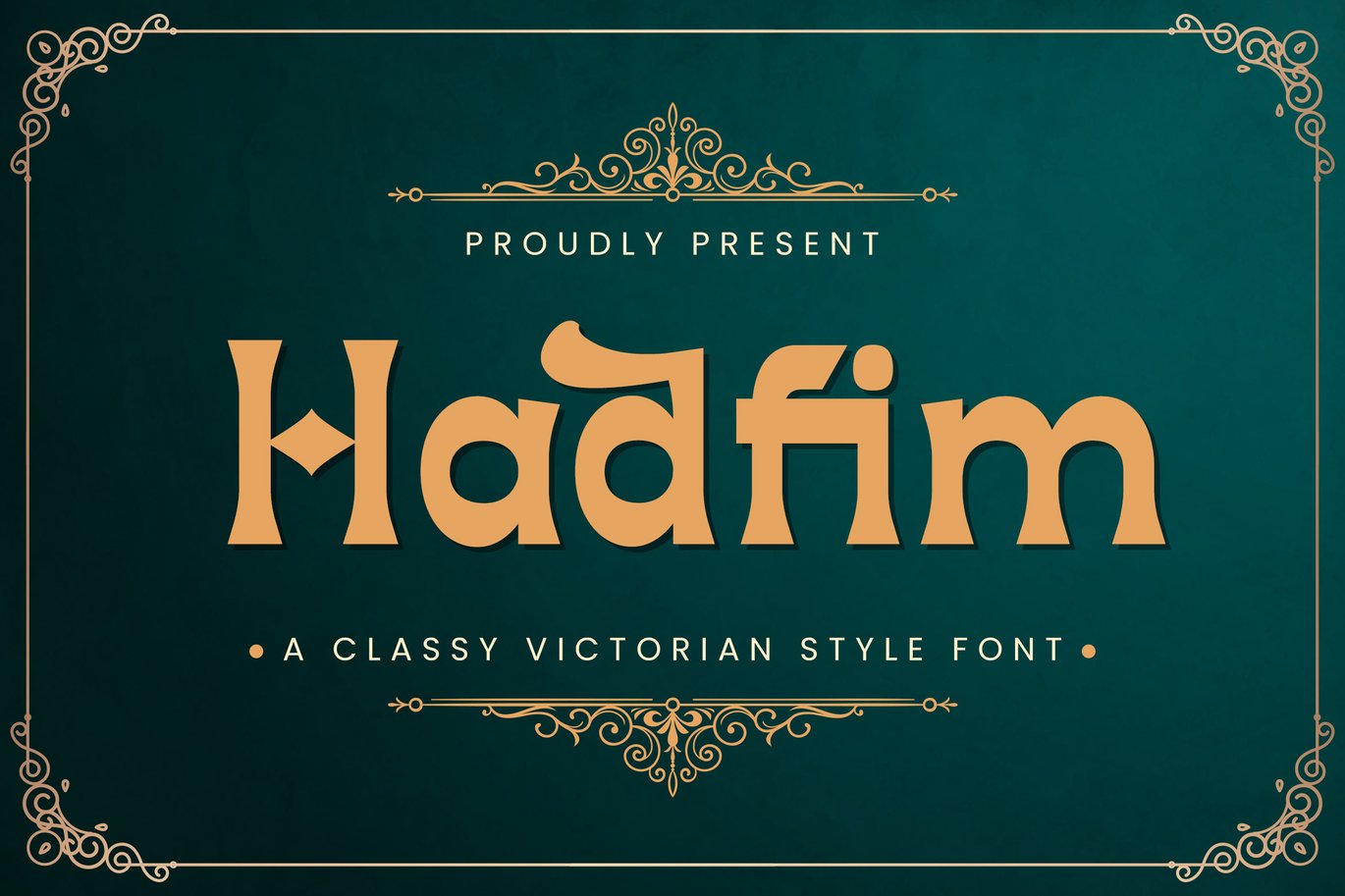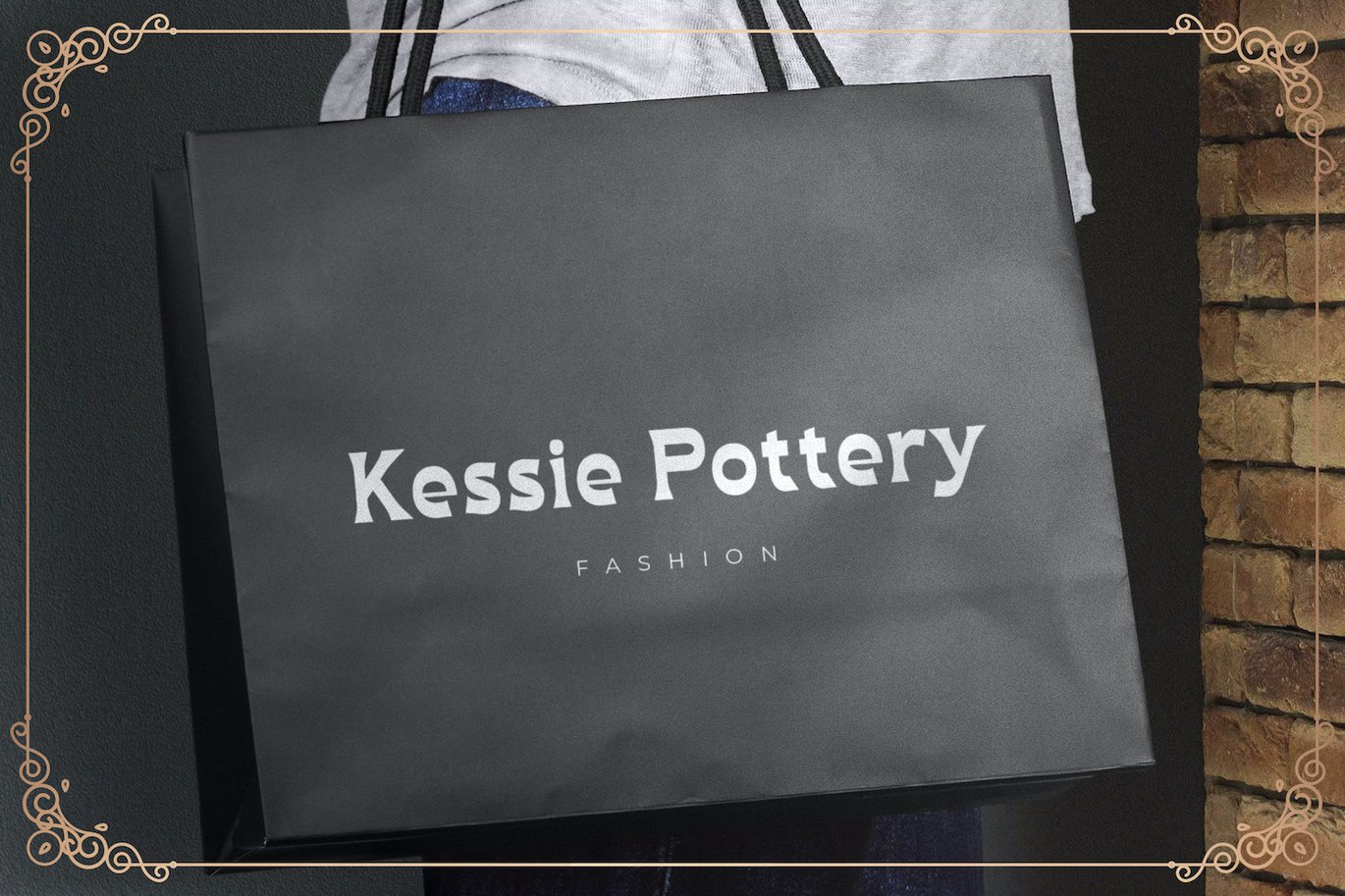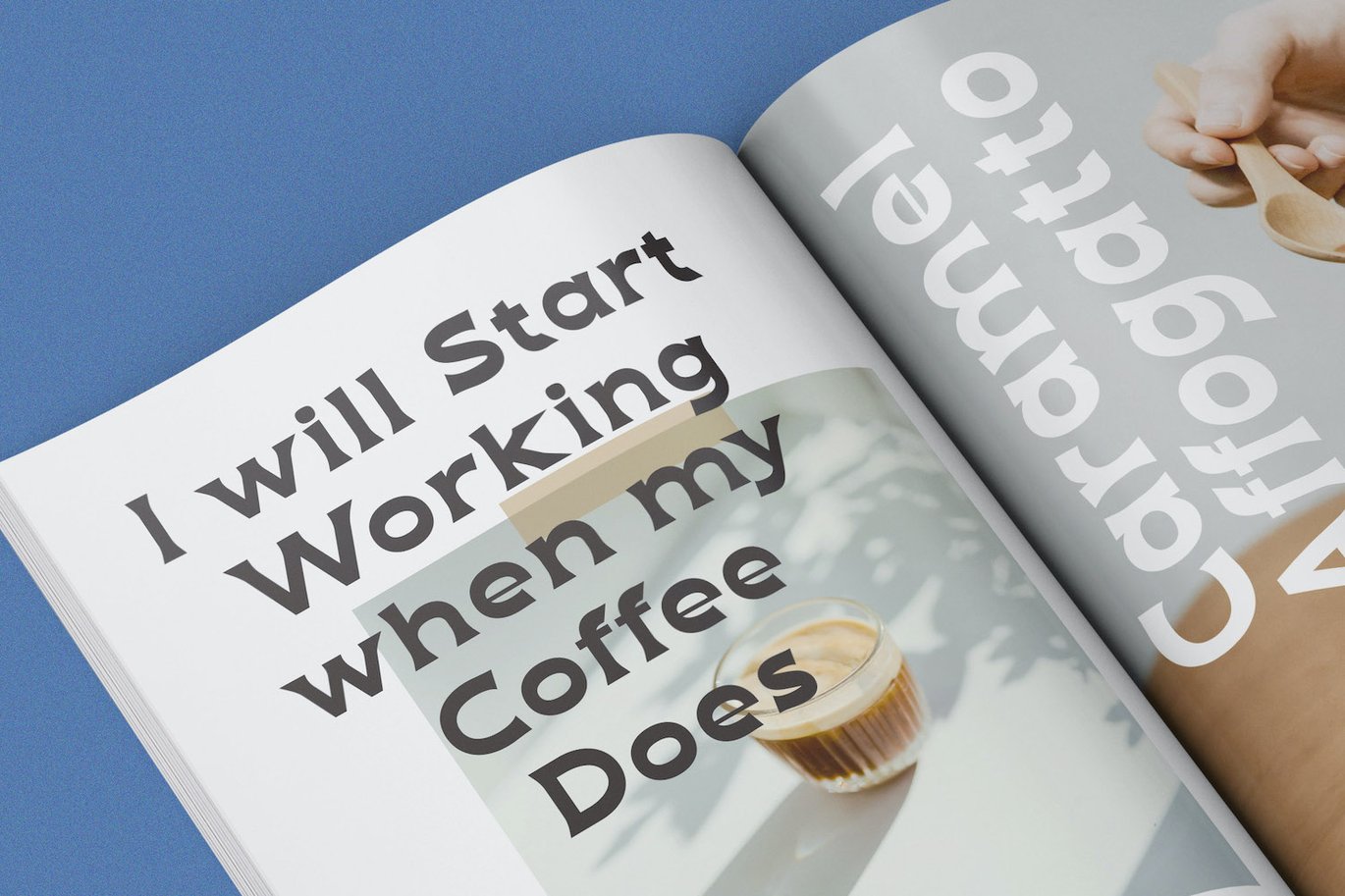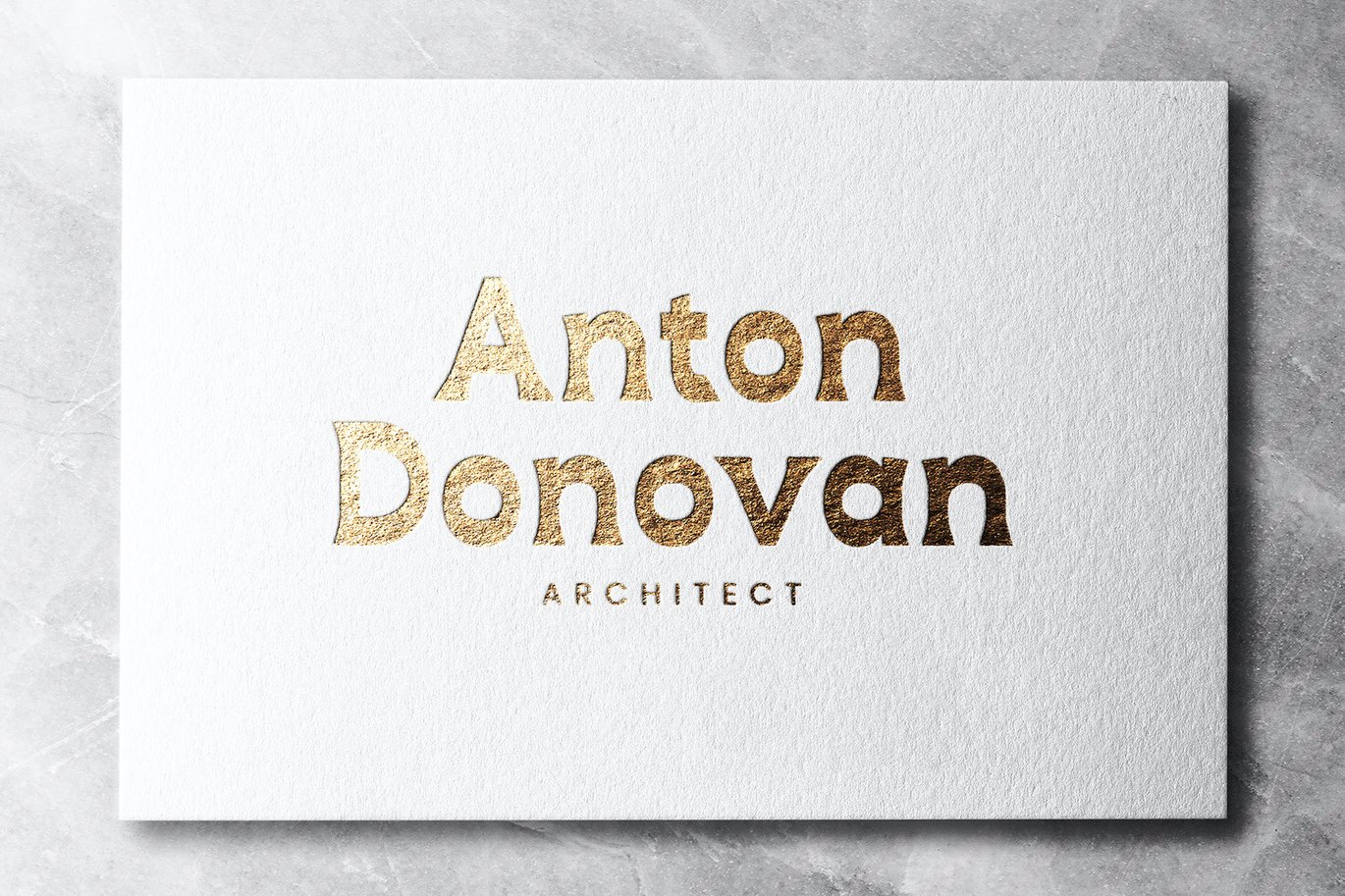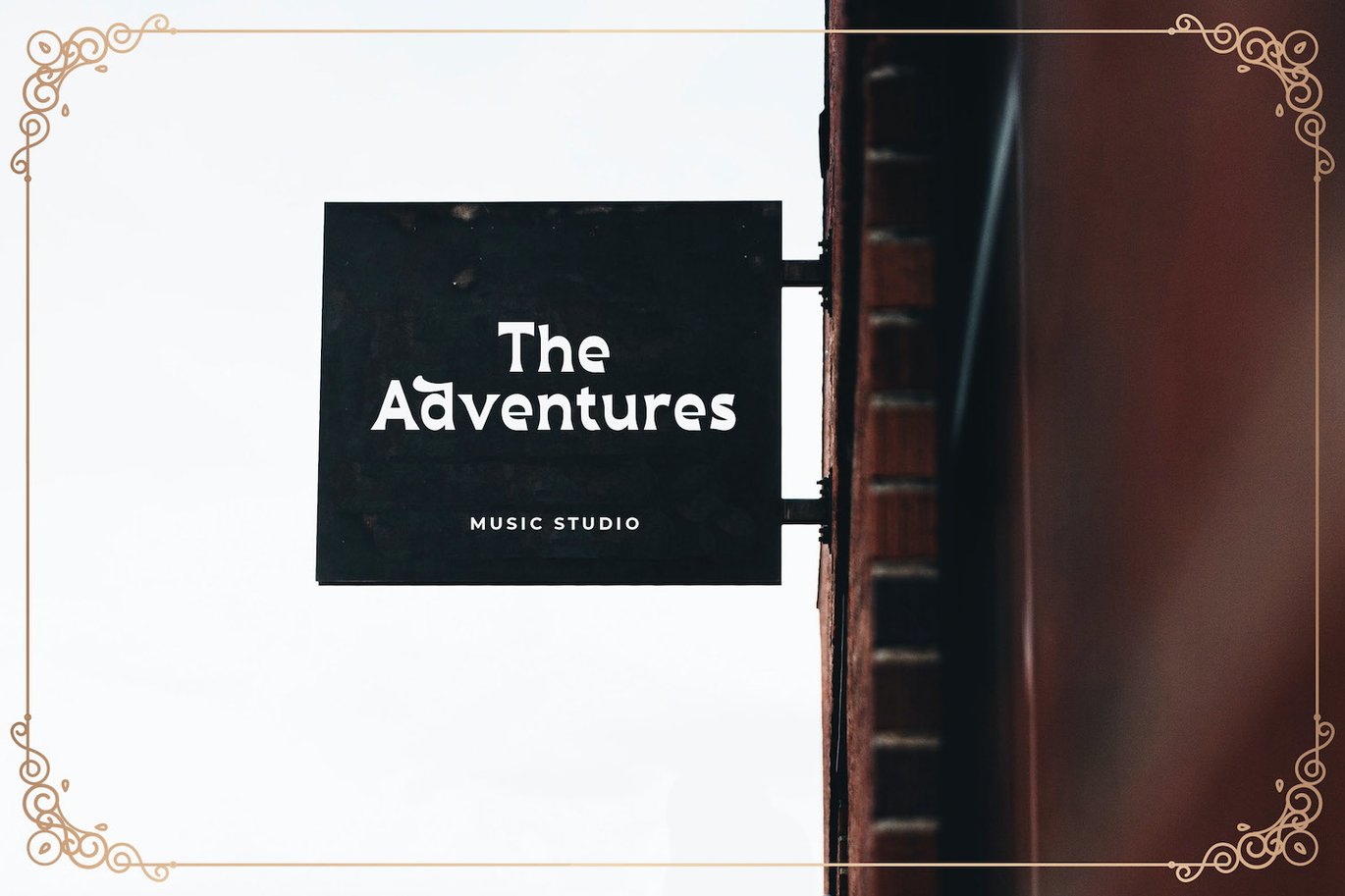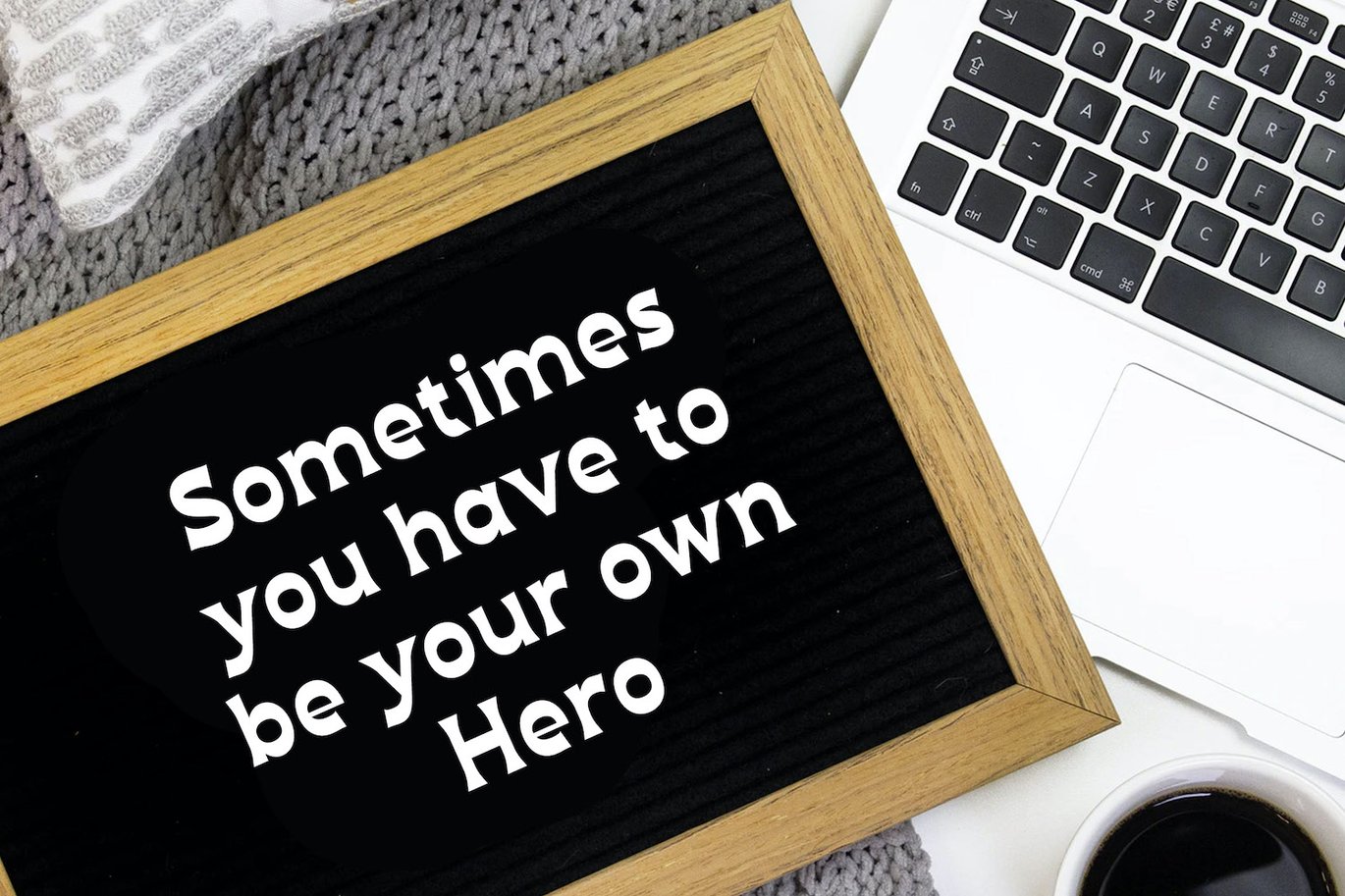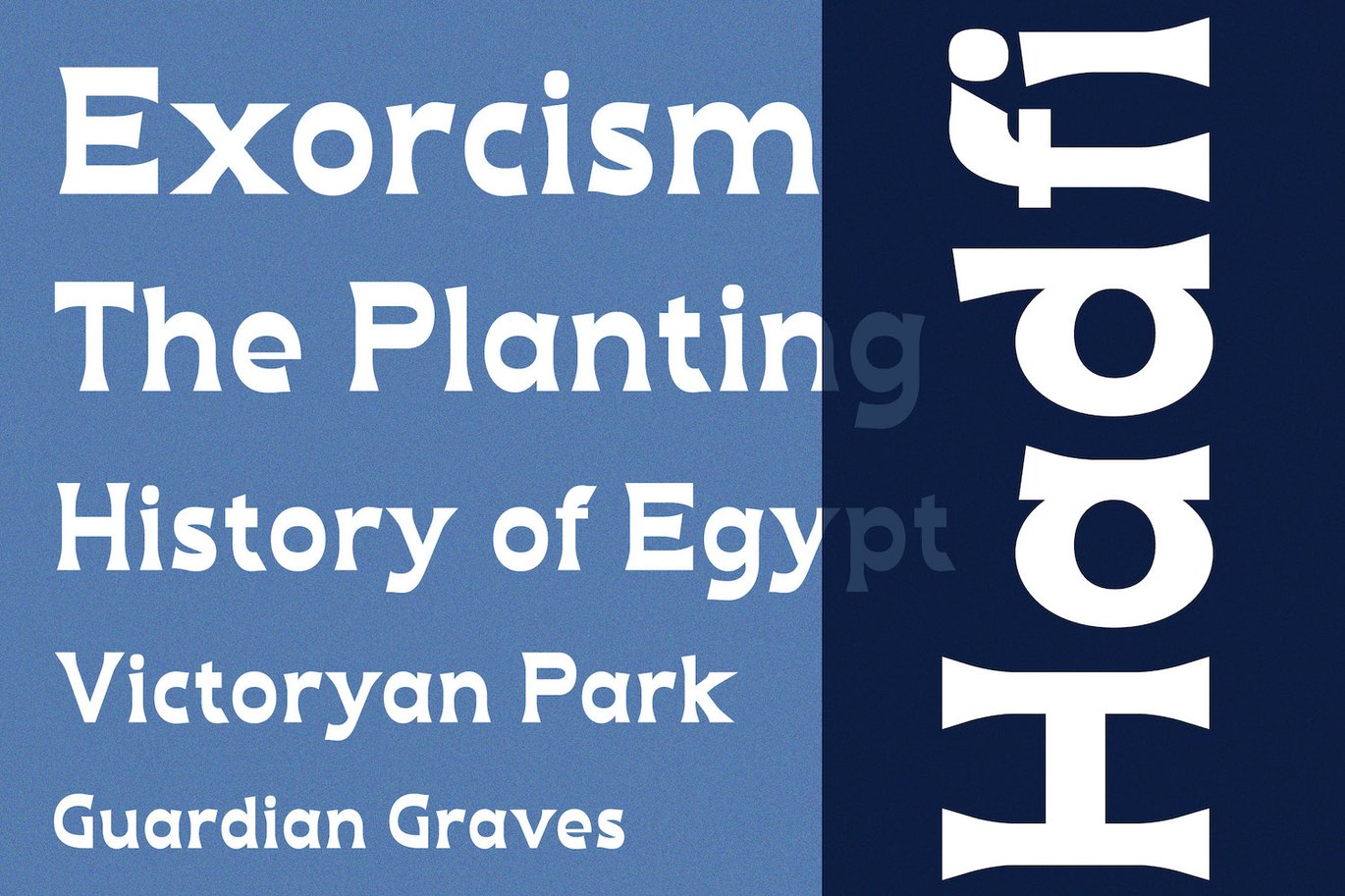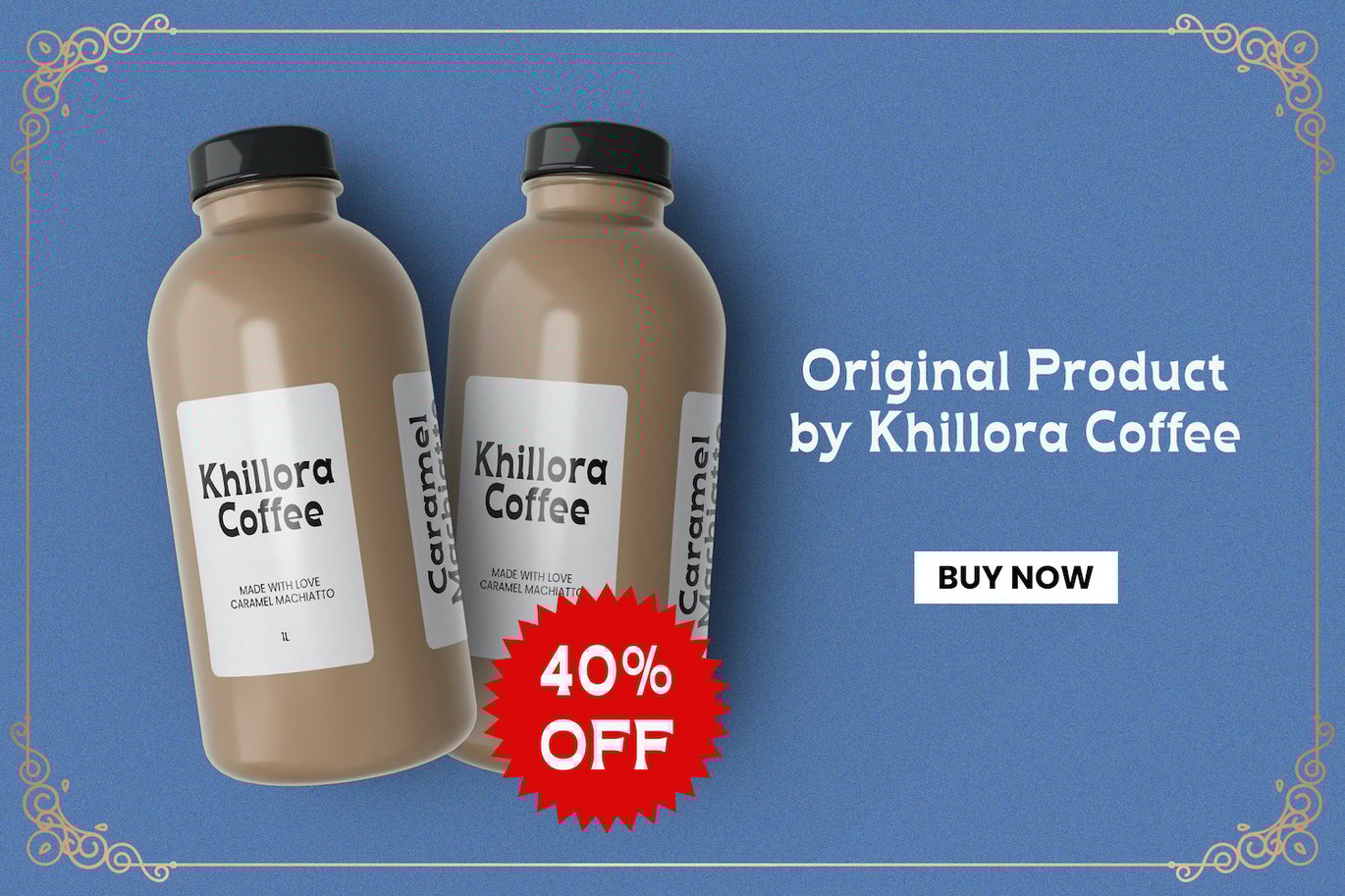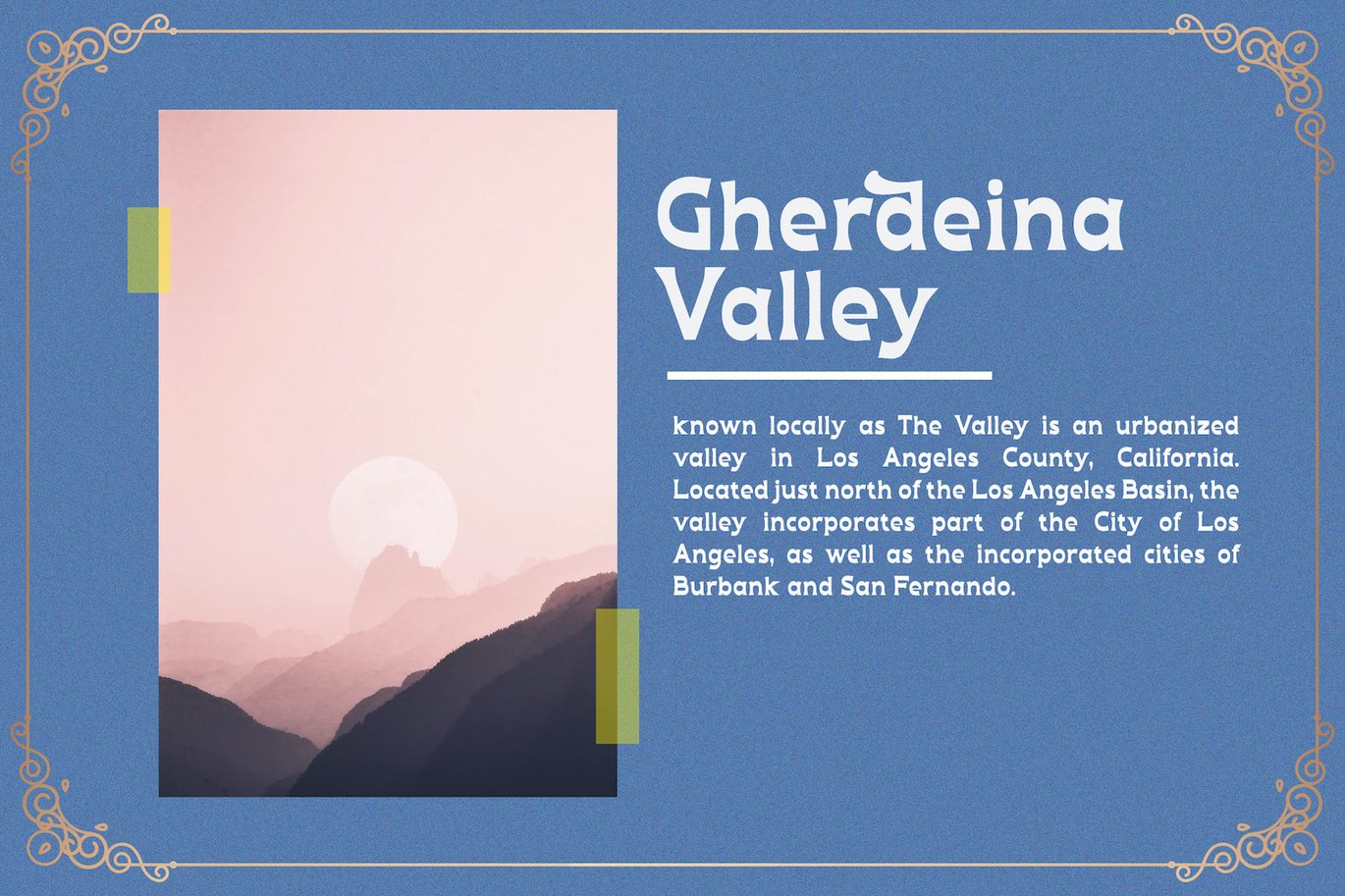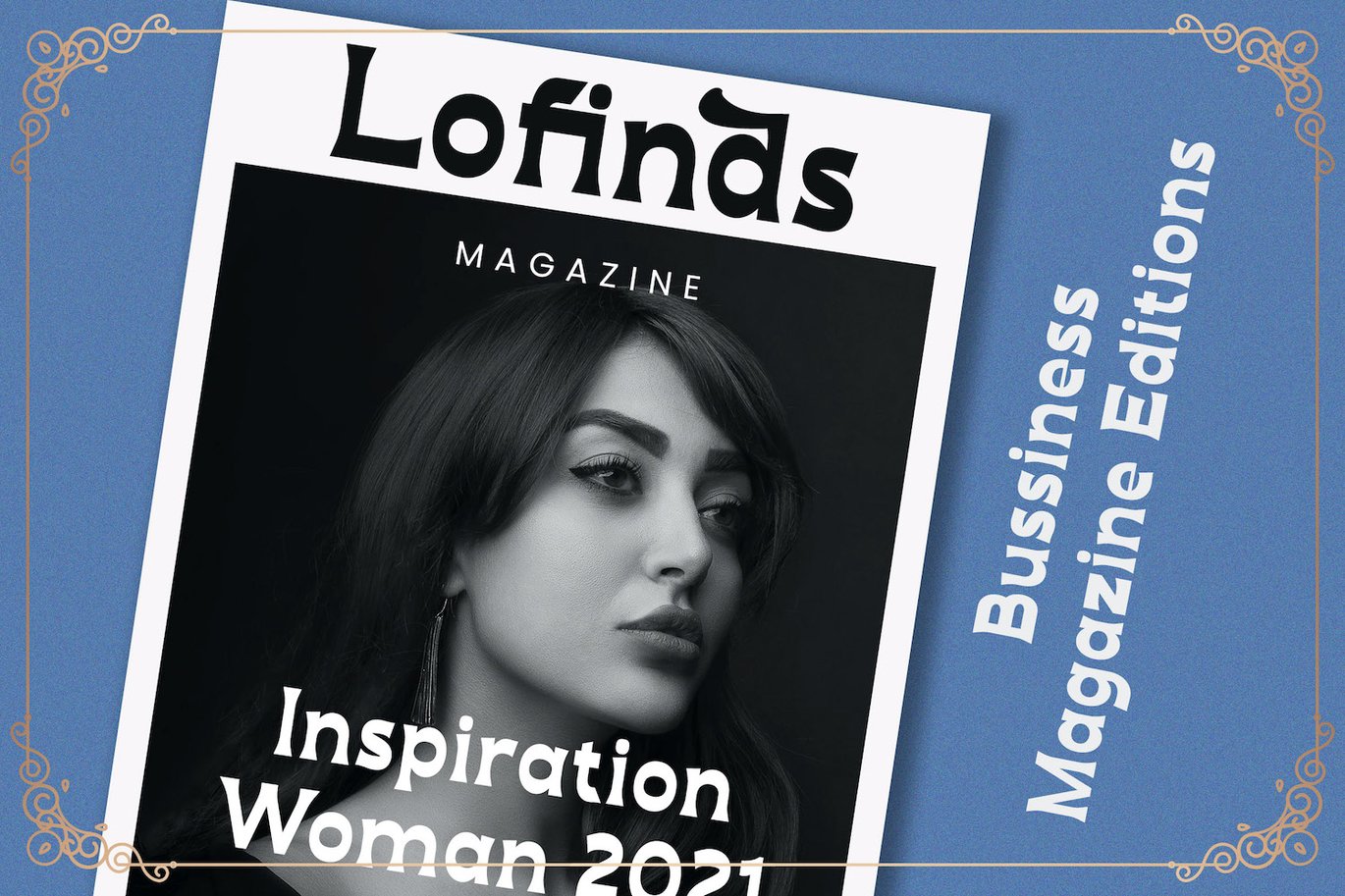
Hadfim – Blackletter Font
Introducing Hadfim – Victorian Decorative Font
Hadfim is a unique, stylish and elegant vintage victorian font. This typeface will look truly outstanding in a wide range of contexts.